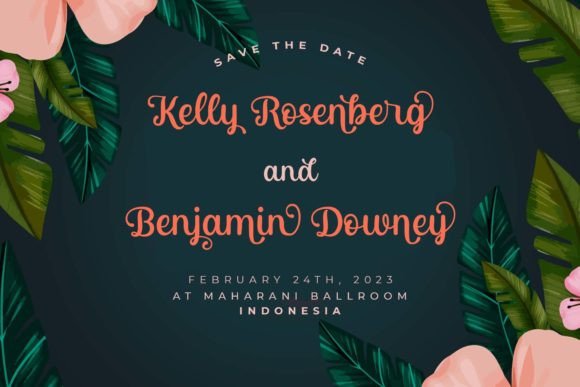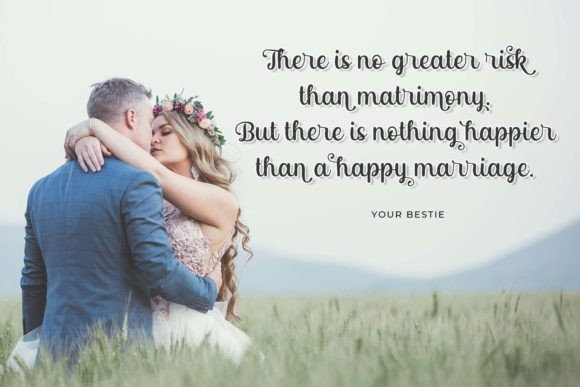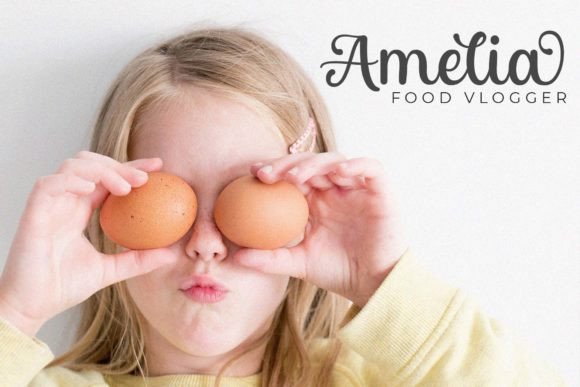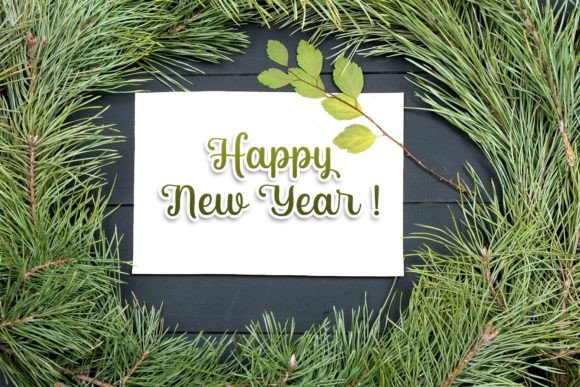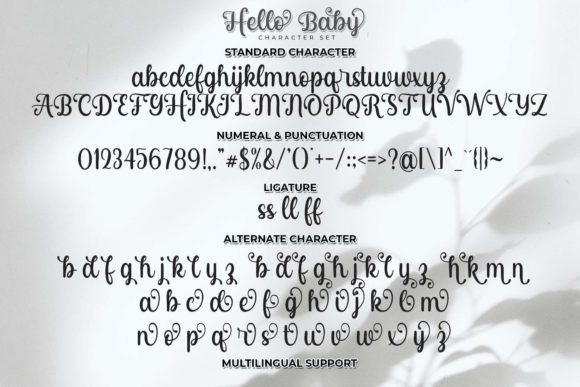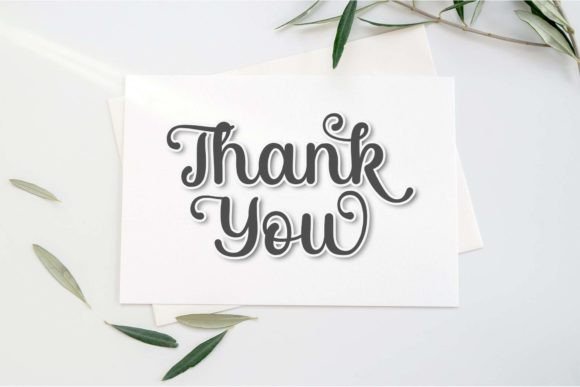
Hello Baby Font: The Perfect Script Font for Fashion Branding and More
Are you a designer or crafter looking for a beautiful and elegant script font to elevate your fashion branding, wedding invitations, or editorial designs? Look no further than the Hello Baby Font! This stunning script font is designed to make your designs stand out with its smooth curves and well-balanced aesthetic.
What Makes Hello Baby Font So Special?
Hello Baby Font is a gorgeous script font that is perfect for a variety of design projects. Its smooth curves and flowing lines give it a sophisticated and elegant feel that is sure to impress. Whether you’re designing a fashion brand, creating a wedding invitation, or working on an editorial project, Hello Baby Font is the perfect choice.
One of the standout features of Hello Baby Font is its PUA (Private Use Area) encoding. This means that you can access all of the glyphs and alternates with ease, giving you complete control over your design. With PUA encoding, you can easily switch between different glyphs and alternates to create a unique and customized look.
Perfect for Fashion Branding
Hello Baby Font is a dream come true for fashion designers and brands. Its elegant and sophisticated aesthetic makes it perfect for creating stunning fashion branding materials, such as logos, business cards, and packaging. The font’s smooth curves and flowing lines evoke a sense of luxury and high-end quality, making it perfect for fashion brands that want to stand out.
With Hello Baby Font, you can create beautiful and eye-catching fashion branding materials that will leave a lasting impression on your customers. Whether you’re designing a logo, creating a brochure, or developing a website, Hello Baby Font is the perfect choice.
Ideal for Wedding Invitations
Wedding invitations are a special and important part of any wedding celebration. They set the tone for the big day and give guests a glimpse into the style and elegance of the wedding. Hello Baby Font is the perfect choice for wedding invitations, with its elegant and sophisticated aesthetic.
With Hello Baby Font, you can create beautiful and romantic wedding invitations that will leave a lasting impression on your guests. The font’s smooth curves and flowing lines evoke a sense of love and luxury, making it perfect for wedding invitations.
Great for Editorial Designs
Hello Baby Font is also perfect for editorial designs, such as magazines, blogs, and books. Its elegant and sophisticated aesthetic makes it perfect for creating stunning editorial designs that will engage and inspire your readers.
With Hello Baby Font, you can create beautiful and eye-catching editorial designs that will stand out from the crowd. The font’s smooth curves and flowing lines evoke a sense of sophistication and elegance, making it perfect for editorial designs.
Key Features of Hello Baby Font
- Beautiful and well-balanced script font: Hello Baby Font is a stunning script font that is designed to make your designs stand out.
- Smooth curves and flowing lines: The font’s smooth curves and flowing lines give it a sophisticated and elegant feel.
- PUA encoded: Hello Baby Font is PUA encoded, making it easy to access all of the glyphs and alternates.
- Perfect for fashion branding, wedding invitations, and editorial designs: Hello Baby Font is perfect for a variety of design projects, including fashion branding, wedding invitations, and editorial designs.
| Author | Doehantz Studio |
Hello Baby Font is a stunning script font that is perfect for designers and crafters looking to elevate their fashion branding, wedding invitations, or editorial designs. With its smooth curves and well-balanced aesthetic, Hello Baby Font is sure to impress. Its PUA encoding makes it easy to access all of the glyphs and alternates, giving you complete control over your design.